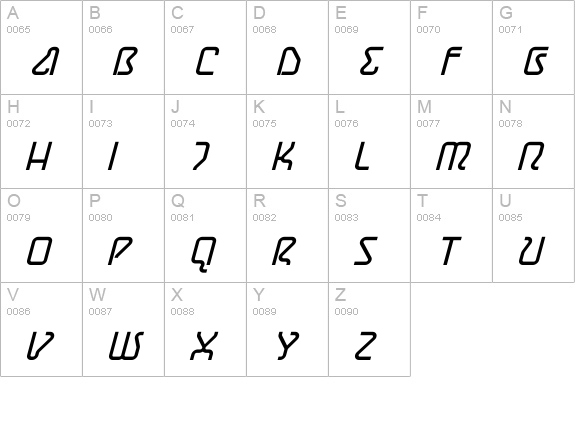
AstroLight Oblique Font Details
AstroLight Oblique is a distinctive, italic variant in the AstroLight typeface family \xE2\x80\x94 well suited to design and typography projects.
Introducing AstroLight Oblique font, a sleek and modern typeface designed to add a touch of elegance to your projects. With its clean lines and sophisticated angles, this font is perfect for creating eye-catching designs that stand out from the crowd. What sets AstroLight Oblique font apart is its unique blend of futuristic elements and classic typography, making it versatile enough for a variety of applications. Whether you're working on a branding project, website design, or print materials, this font will elevate your work to the next level. Best of all, AstroLight Oblique font is completely free to download at FontsMarket.com. So you can bring a touch of sophistication to your projects without breaking the bank. Don't miss out on this opportunity to enhance your designs with this stunning typeface. Download AstroLight Oblique font today and take your designs to new heights!